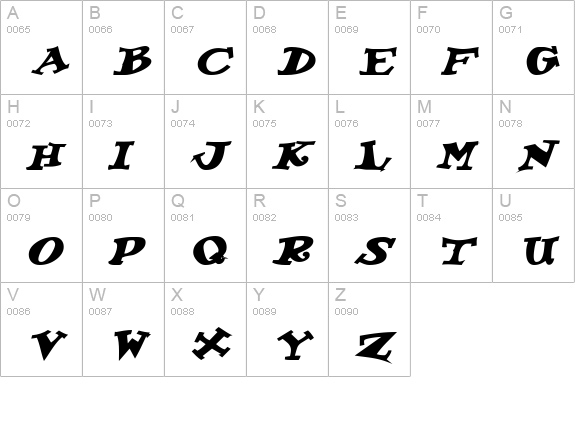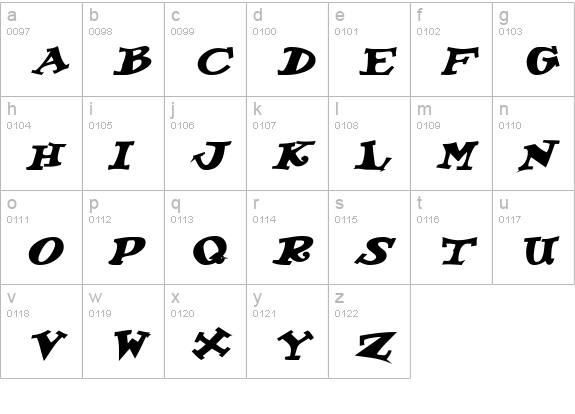
KoolKapsDisplayHvy Bold Italic Font Details
KoolKapsDisplayHvy Bold Italic is a strong, high-contrast, italic variant in the KoolKapsDisplayHvy typeface family \xE2\x80\x94 well suited to headlines, attention-grabbing titles, and strong calls-to-action.
KoolKapsDisplayHvy Bold Italic font is a striking and bold typeface that demands attention with its heavy weight and unique italicized style. Perfect for creating eye-catching headlines, logos, and branding materials, this font exudes a sense of confidence and modernity. Its distinctive design sets it apart from the crowd, making it a versatile choice for various design projects. The best part? KoolKapsDisplayHvy Bold Italic font is available for free download at FontsMarket.com. Yes, you read that right - you can get your hands on this impressive font without spending a penny. Don't miss out on this opportunity to enhance your designs with a font that exudes power and sophistication. Download KoolKapsDisplayHvy Bold Italic font today and elevate your creative projects to new heights!